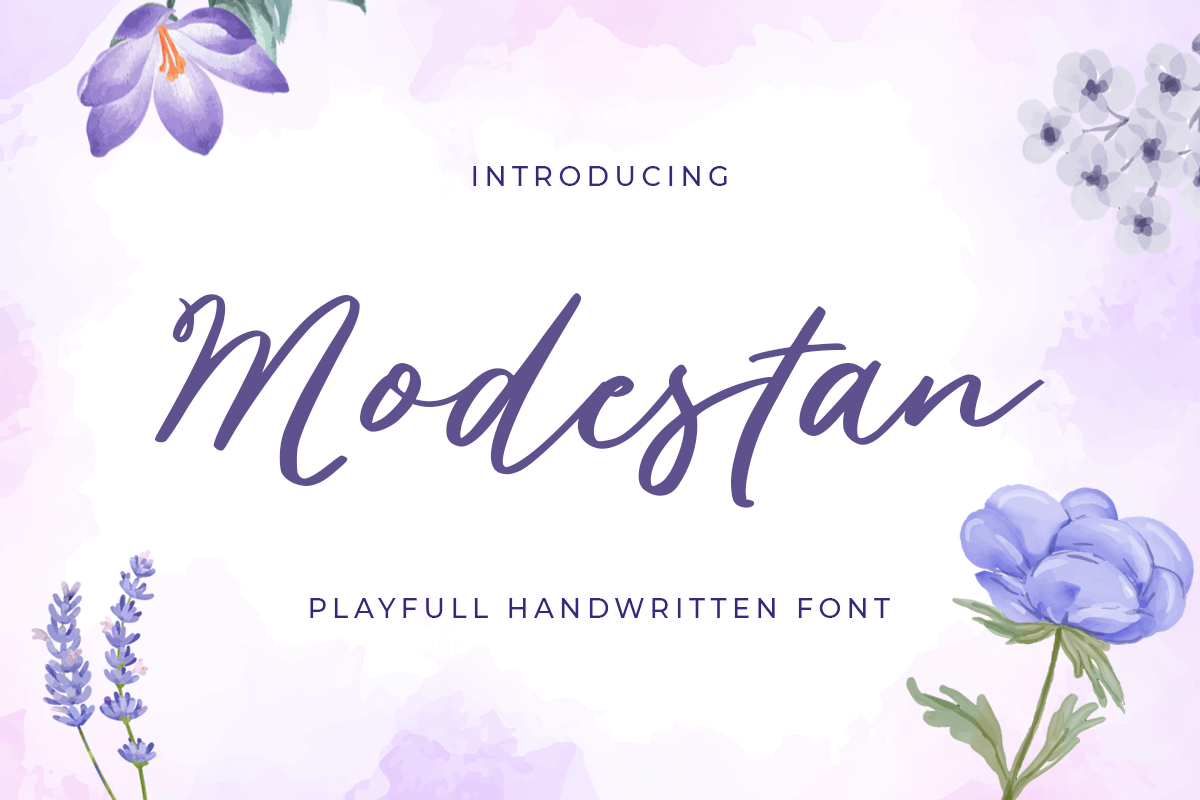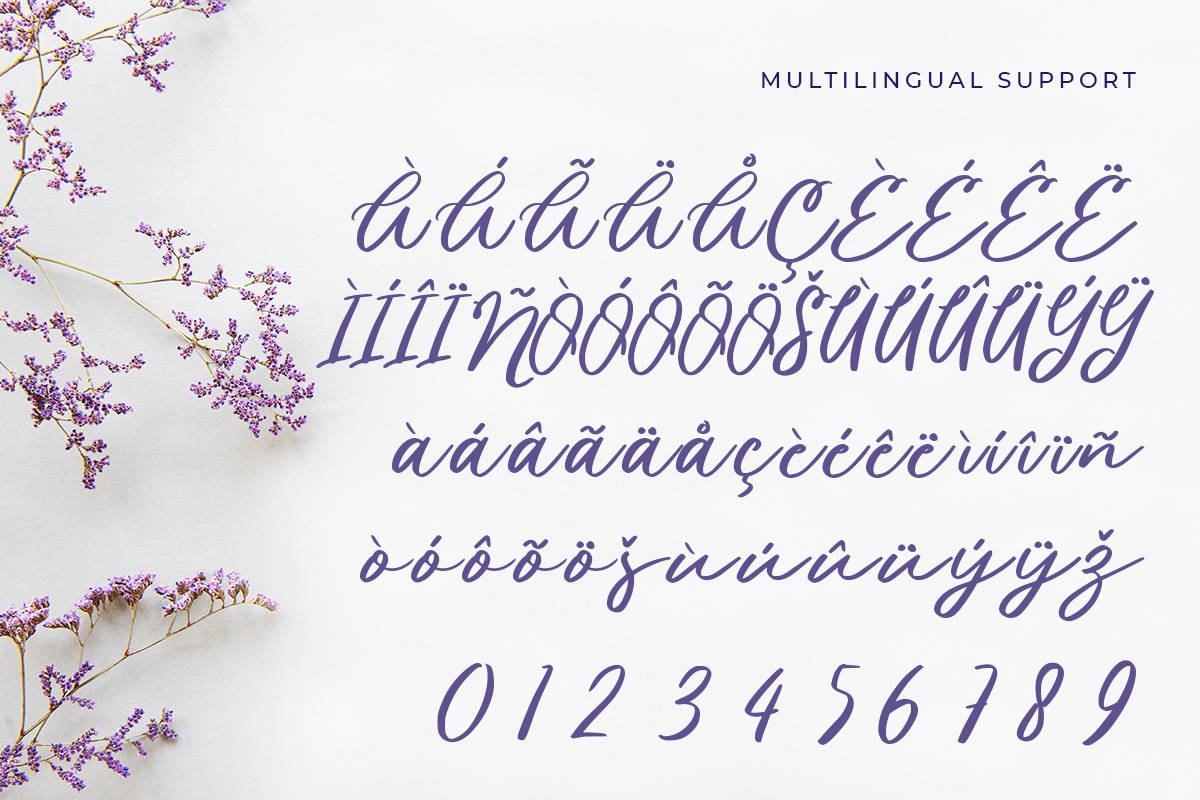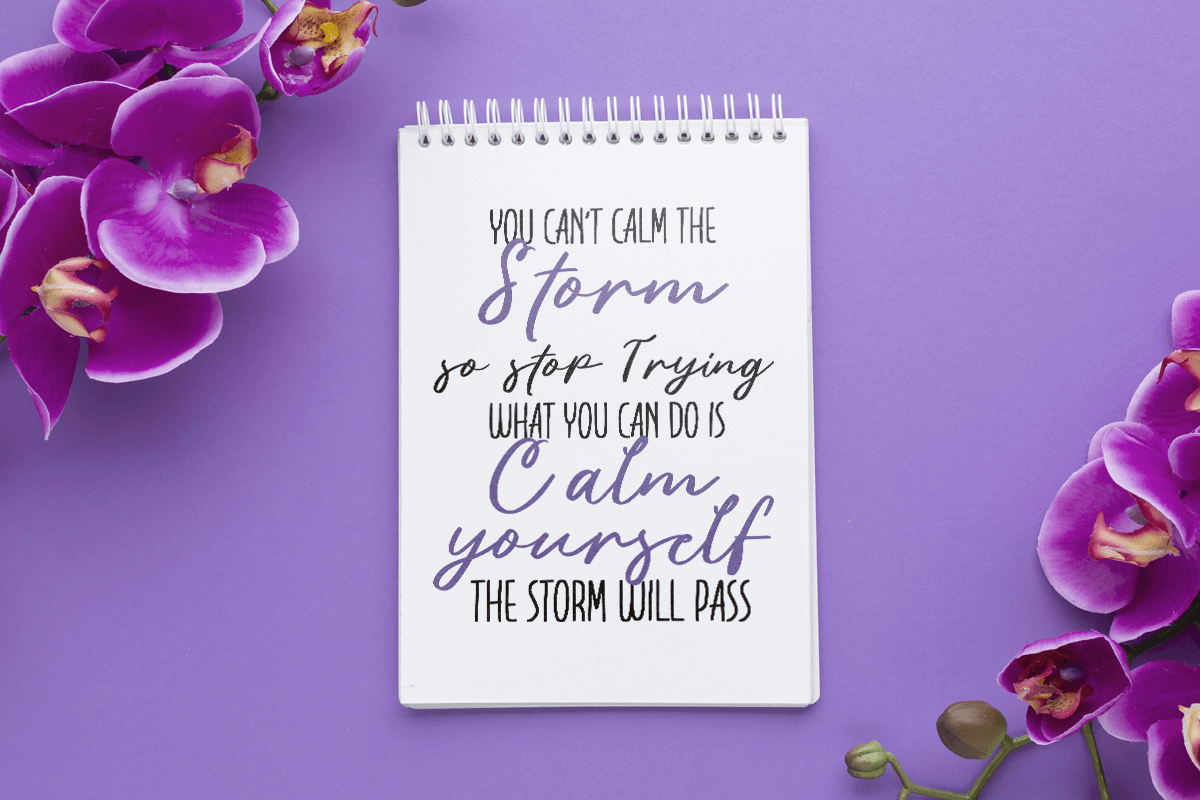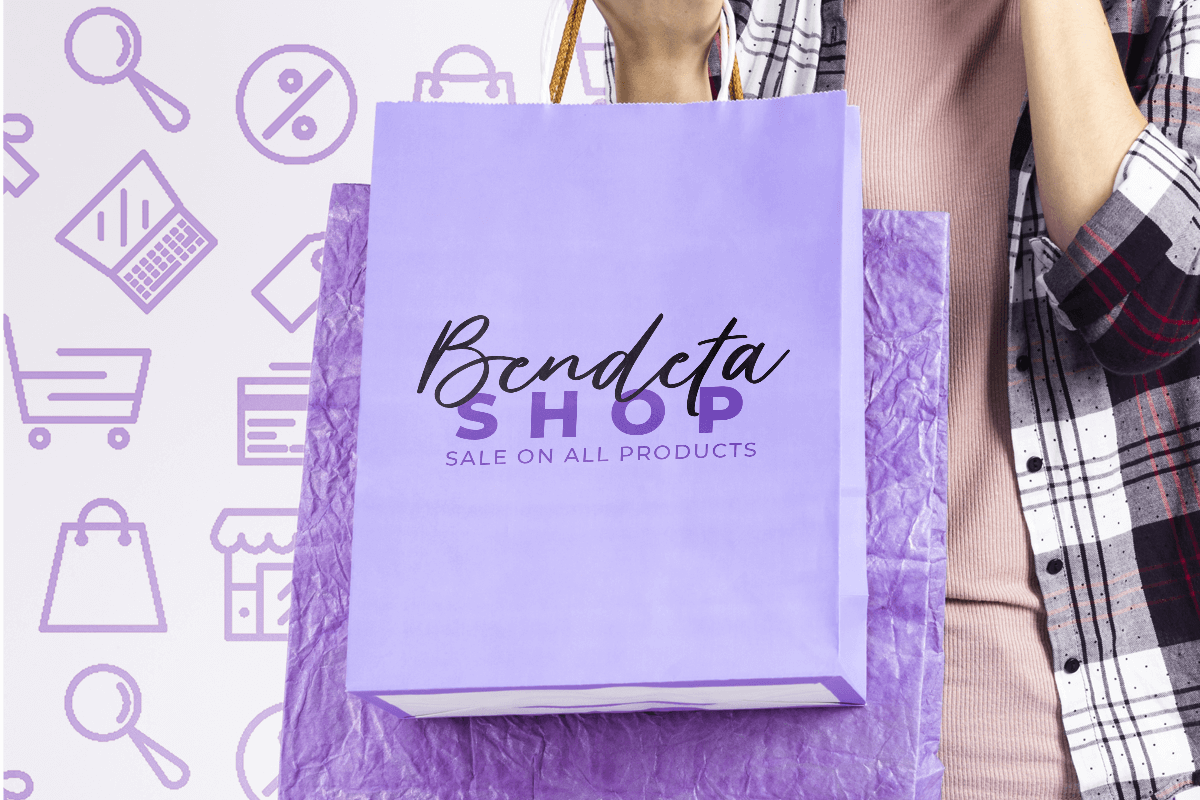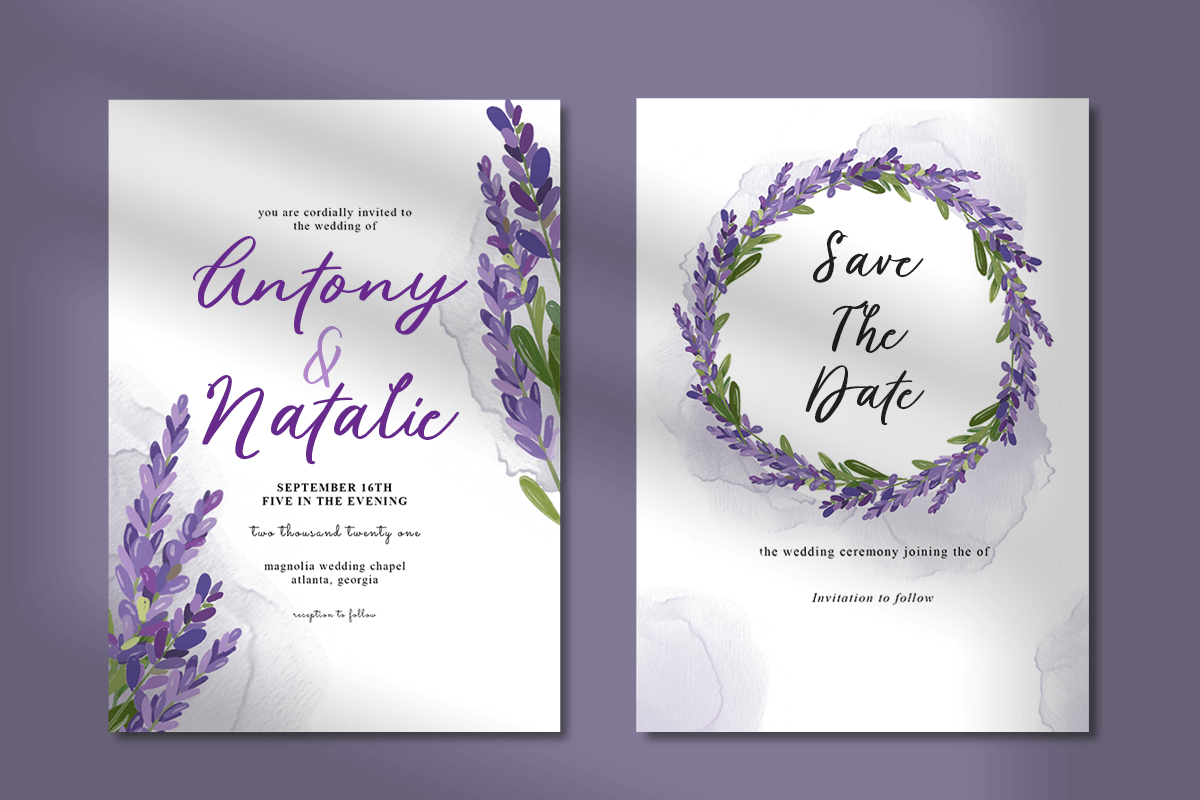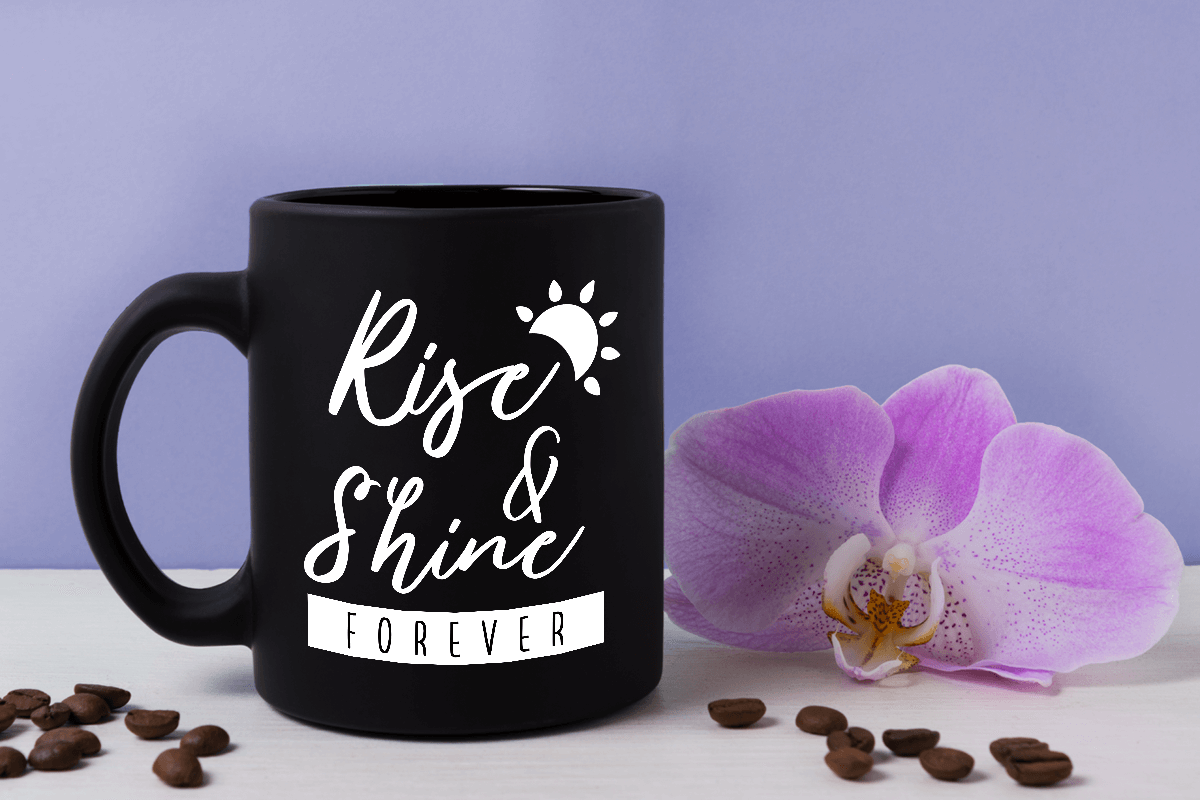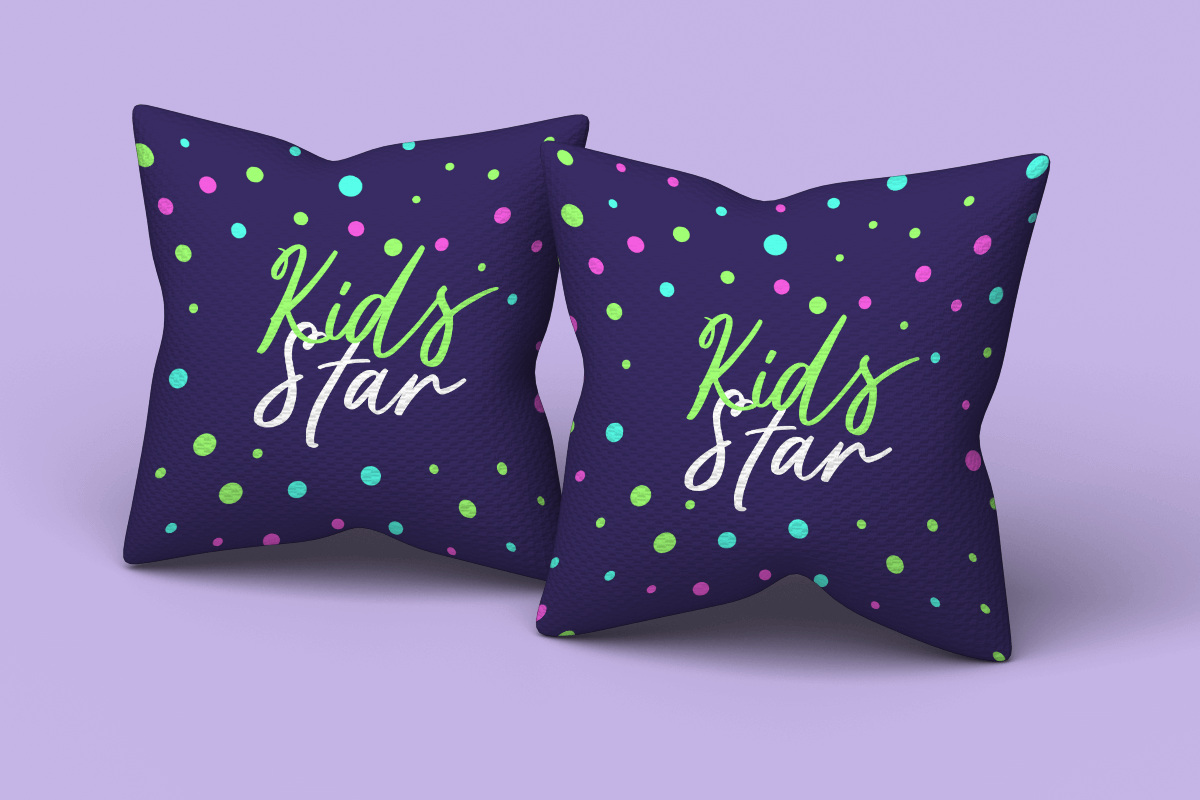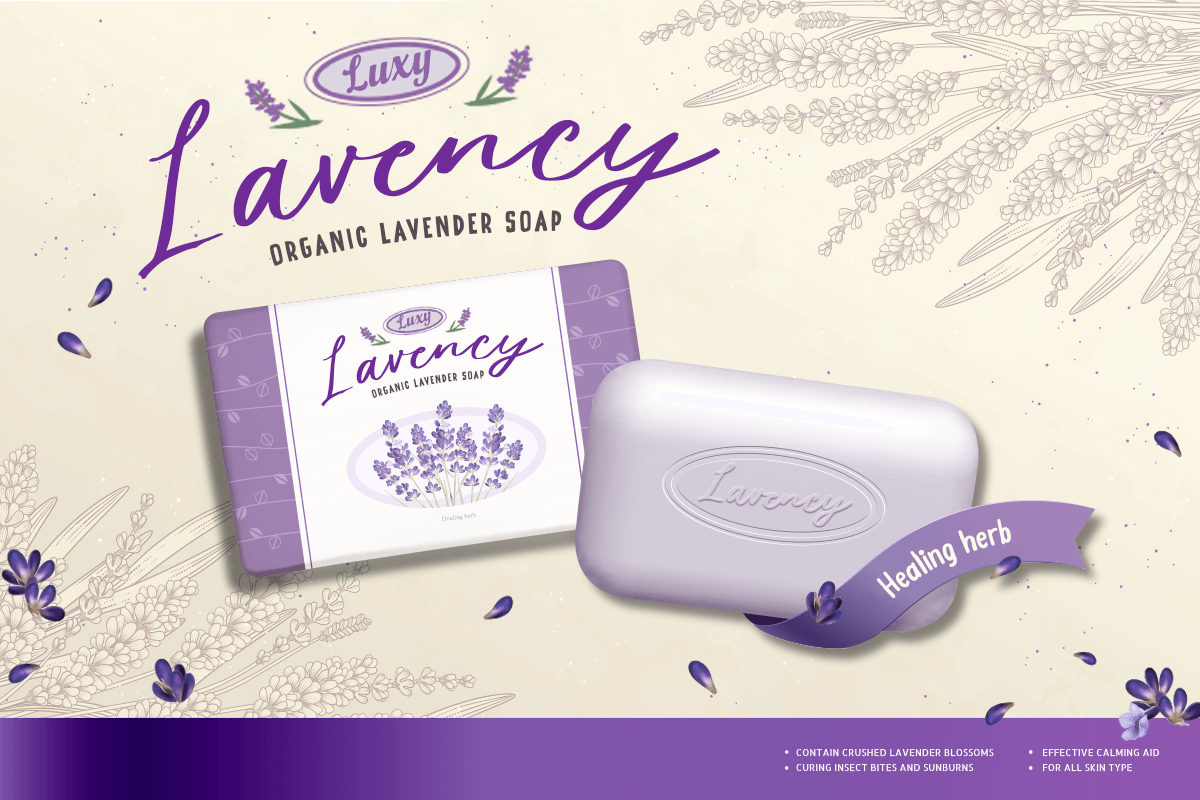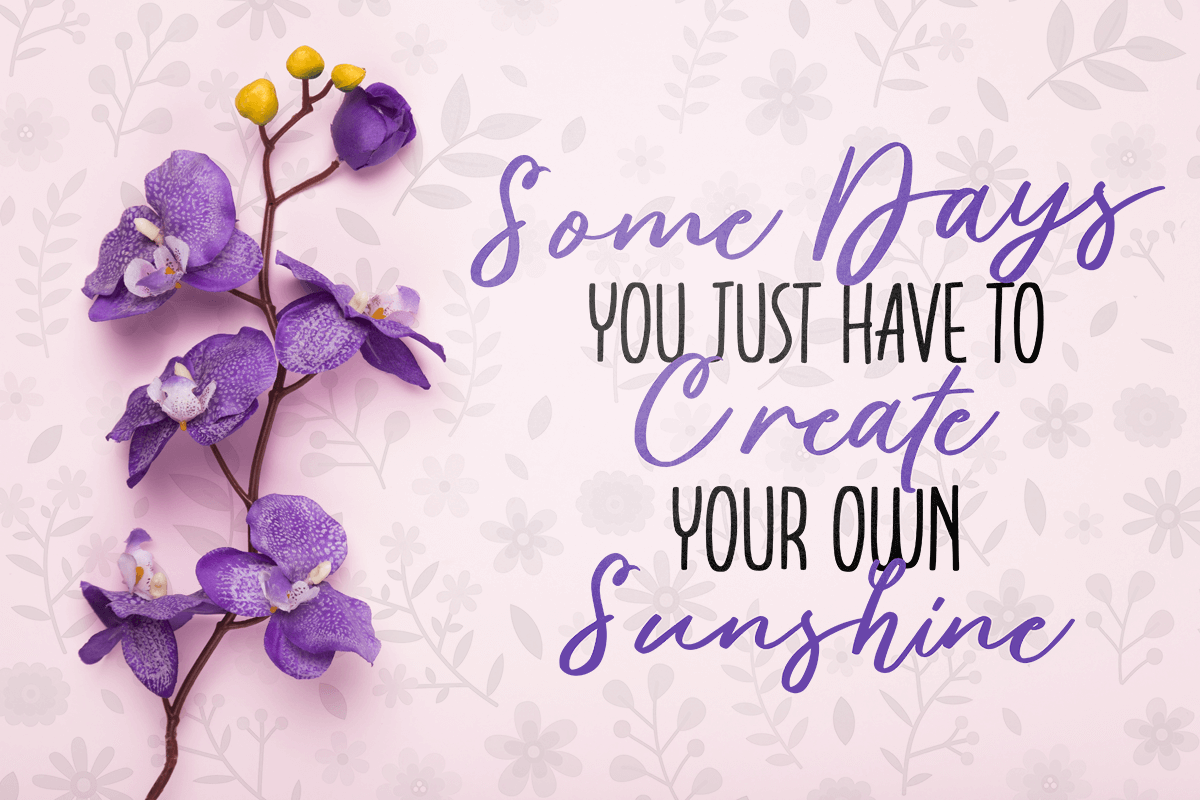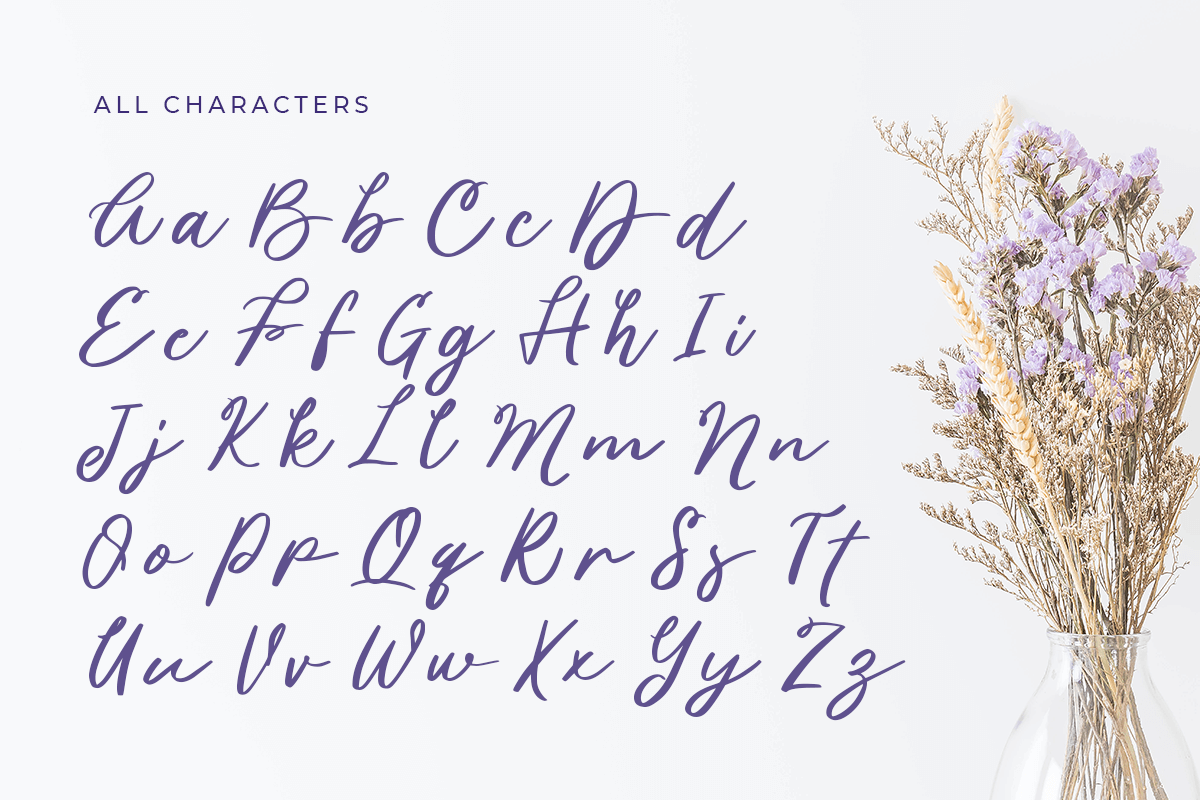
Modestan
-Playful Handwritten Font
Modestan
Modestan Playful Handwritten Font. This font specially crafted for your branding, quotes design projects or cute logo, unique, modern for any designs such as print, merchandise, and so many more with easy to use but unique results are so playful.
Enjoy to Design any your needs with cute and playful feel.